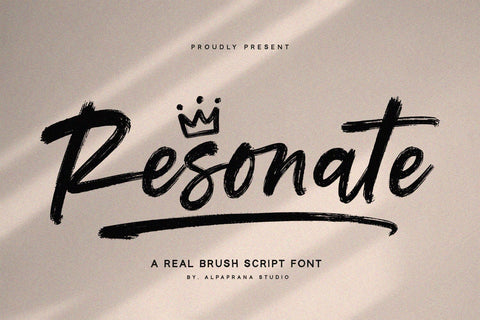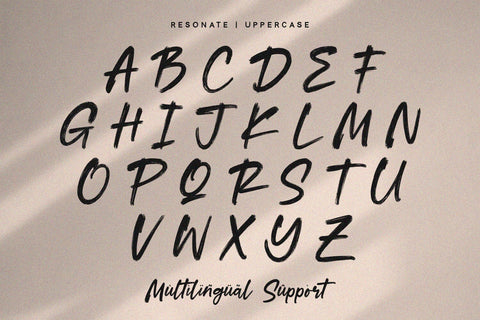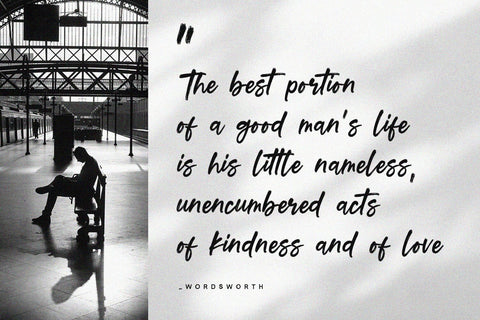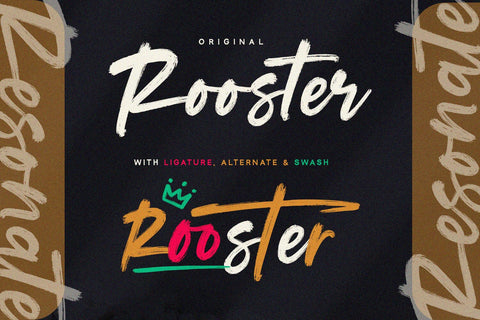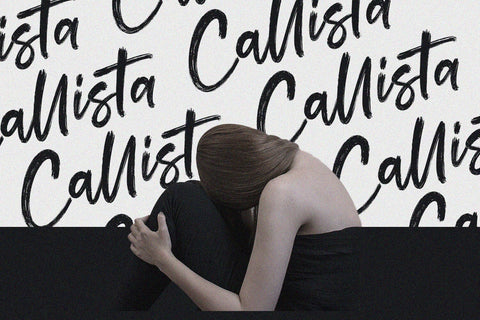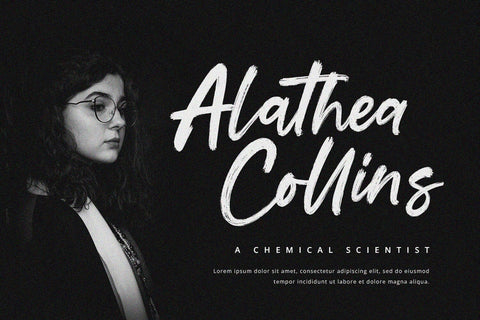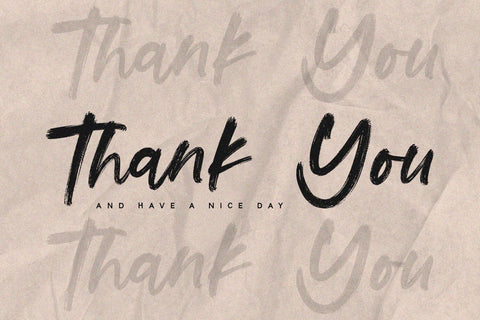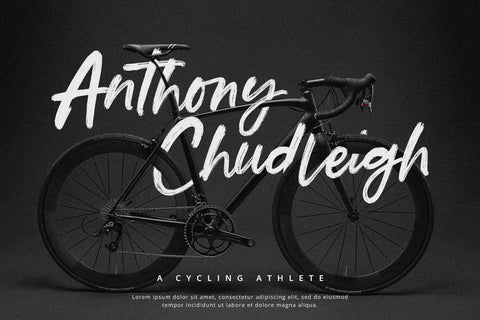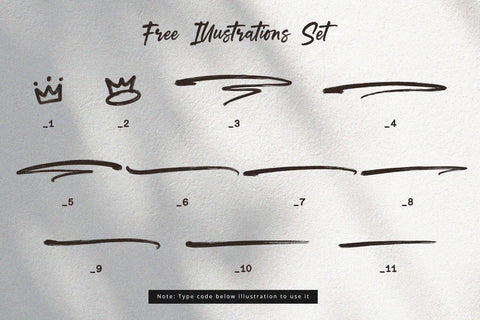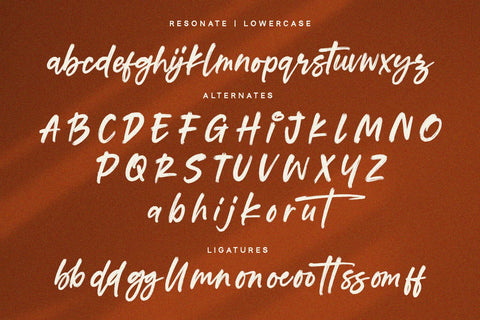
Resonate - Brush Script Font
Resonate is a brush script font with unique and modern feels. It will be perfectly used for Branding, Logo Design, Lettering, Logotype, Clothing, Poster, magazine, packaging, posters, shopping bags, t-shirts, book covers, photography, special events and other design project.